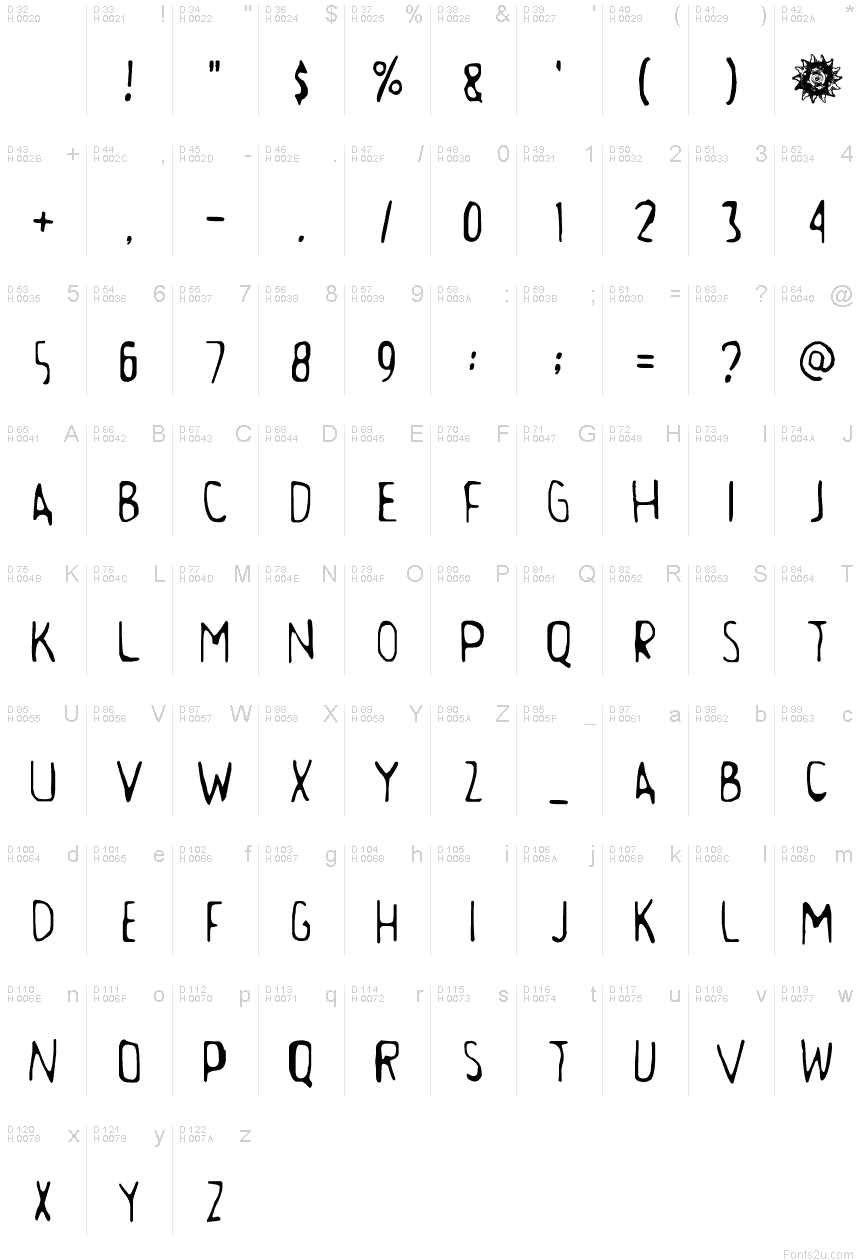
Aamunkoi
Aamunkoi font by junkohanhero is a free handwritten font with a tall, skinny stance and inky, irregular strokes that feel like they were scrawled quickly with a thick marker. The letters lean and wobble just enough to feel human, while the solid, filled-in counters give it a bold, slightly eerie presence. It’s casual but not cute—there’s a raw, gritty energy that stands out immediately in a lineup of softer script fonts.
Using Aamunkoi, you can bring a restless, hand-drawn mood to posters, zines, indie book covers, event flyers, album art, and bold social graphics. This free font shines at larger sizes where its quirks and ink-heavy shapes can breathe. Pair it with a clean geometric sans for body text to keep layouts readable while letting Aamunkoi handle the noisy, character-packed headlines.